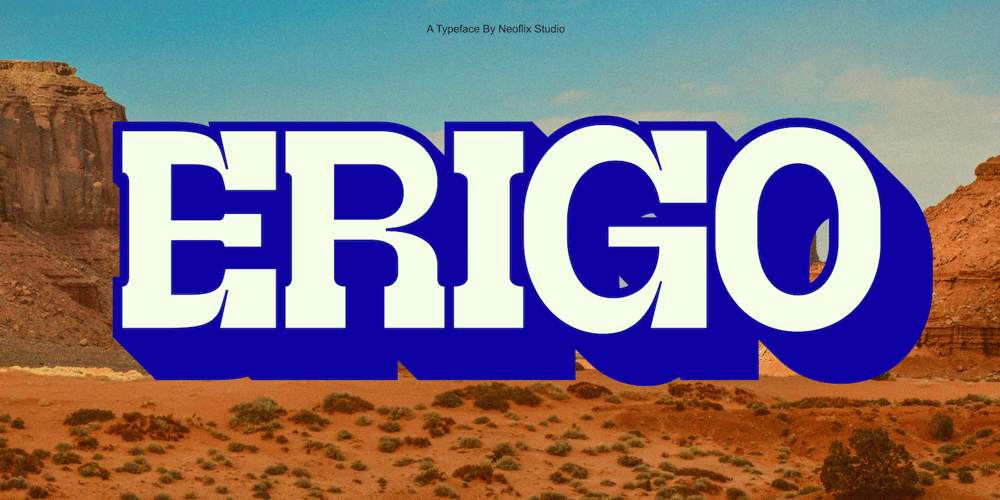
Erigo
Erigo font
Erigo Font Family was designed by Irwan Riswanto and published by Neoflix Studio. Erigo contains 1 styles and family package options. Erigo Typeface!!! Erigo is a hight-contrast and eyecathing display typeface. Erigo is perfect for poster, t-shirt, cover books, headline and manymore. Already matched up and ready to be used together for your next design!Erigo was built +420 glyphs with numbers, punctuation and supports other languages.